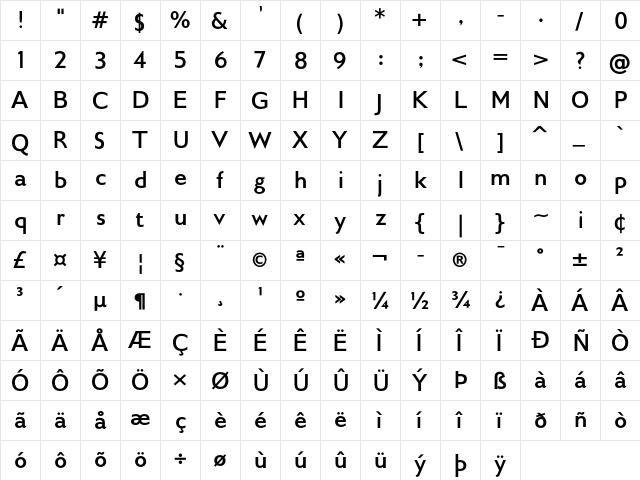
Gillius ADF No2 Bold
| Foundry | Arkandis Digital Foundry. |
| Designer | Hirwen HARENDAL |
Design Context for Gillius ADF No2 Typeface
Gillius ADF No2 is a composed and adaptable typeface that performs quietly and consistently across a wide range of design contexts. The heavy weight commands attention and anchors typographic hierarchies.